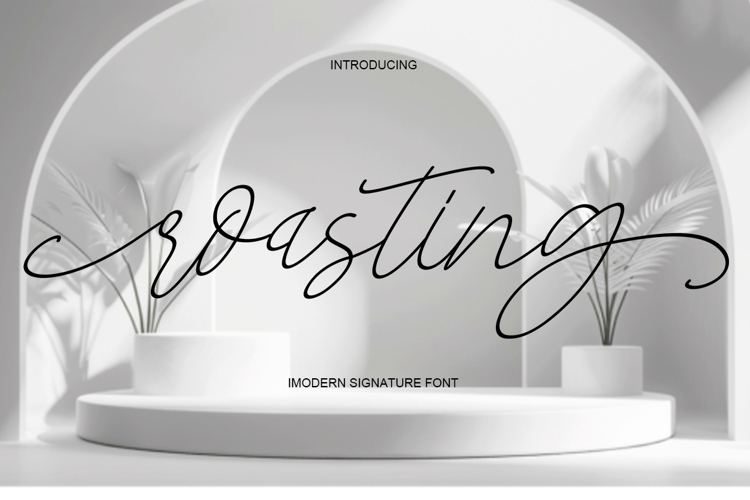
Beautiful Handwriting
Roasting is a flowing handwritten font, described by an elegant touch, perfect for your favorite projects. Fall in love with its incredibly distinct and timeless style and use it to create spectacular designs!